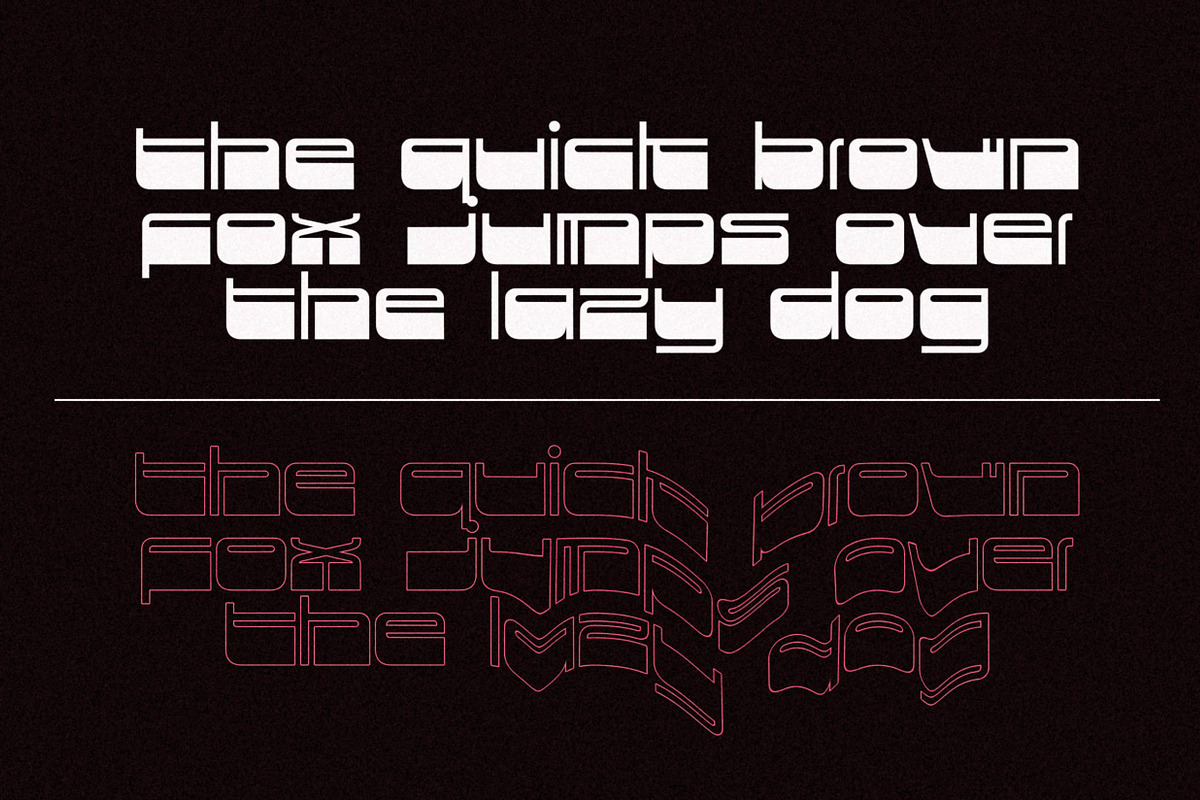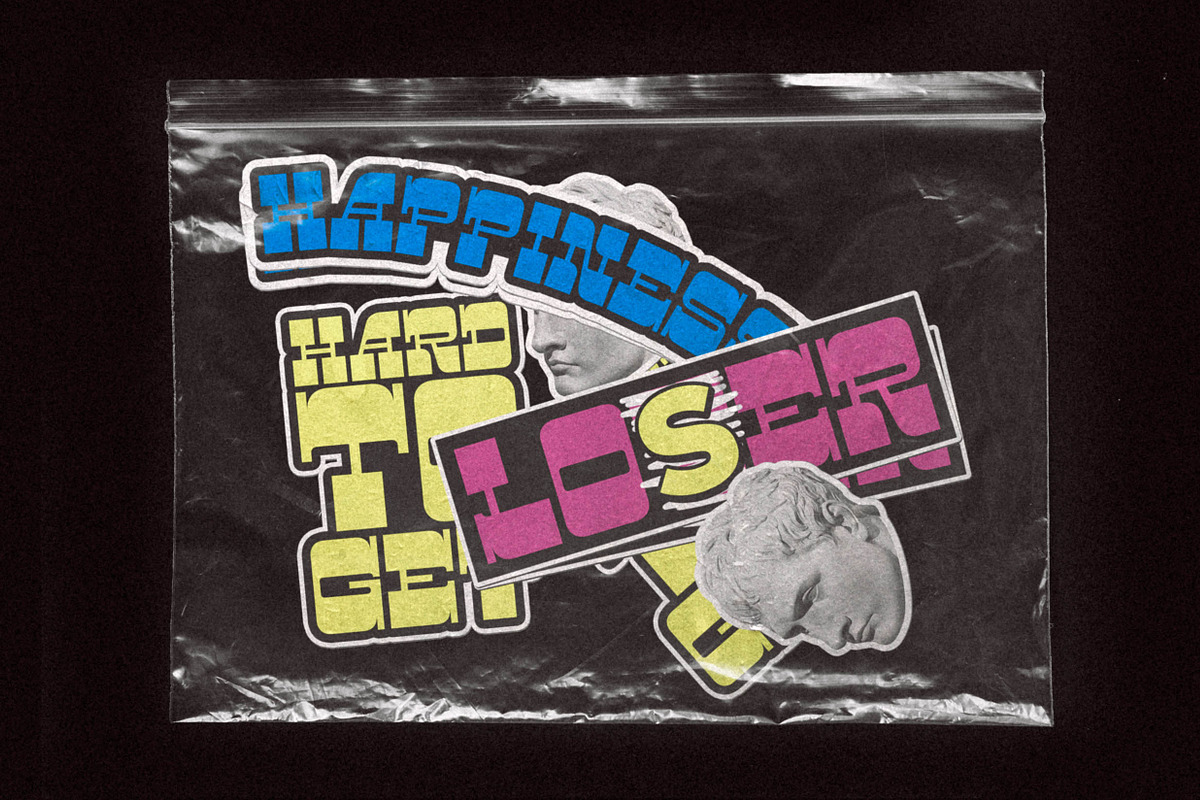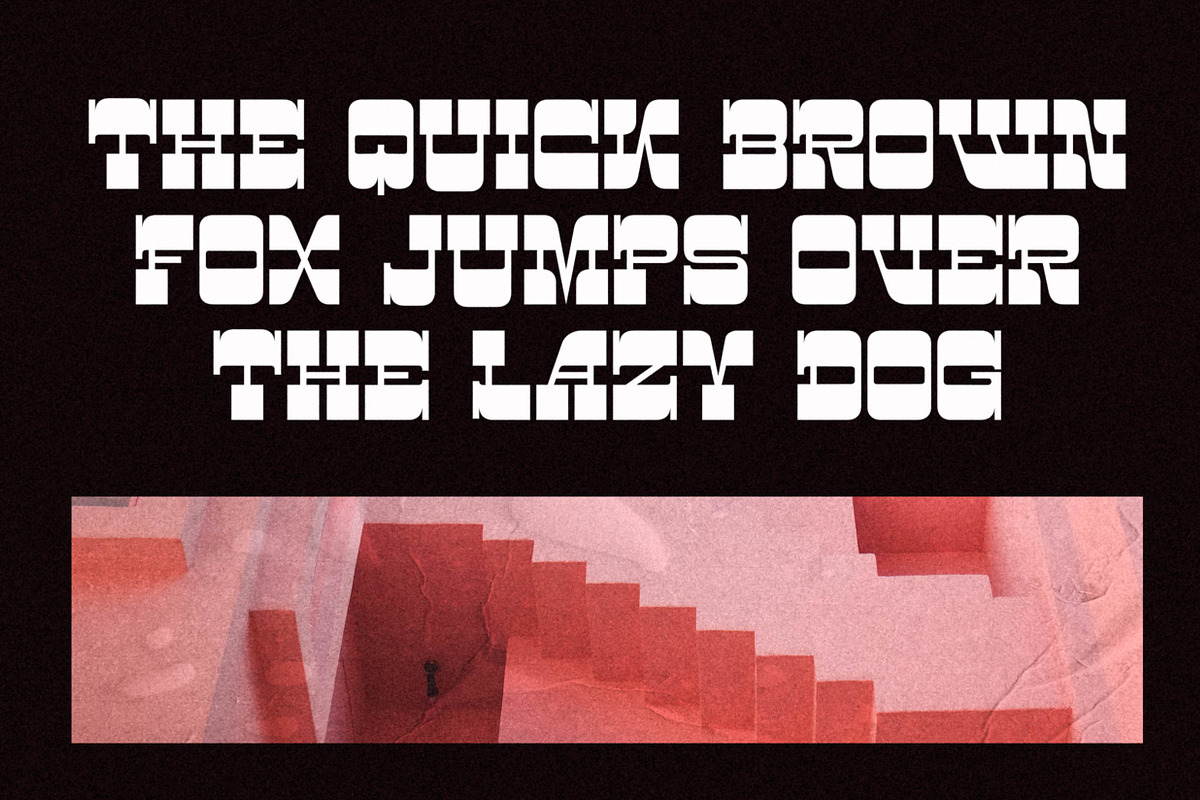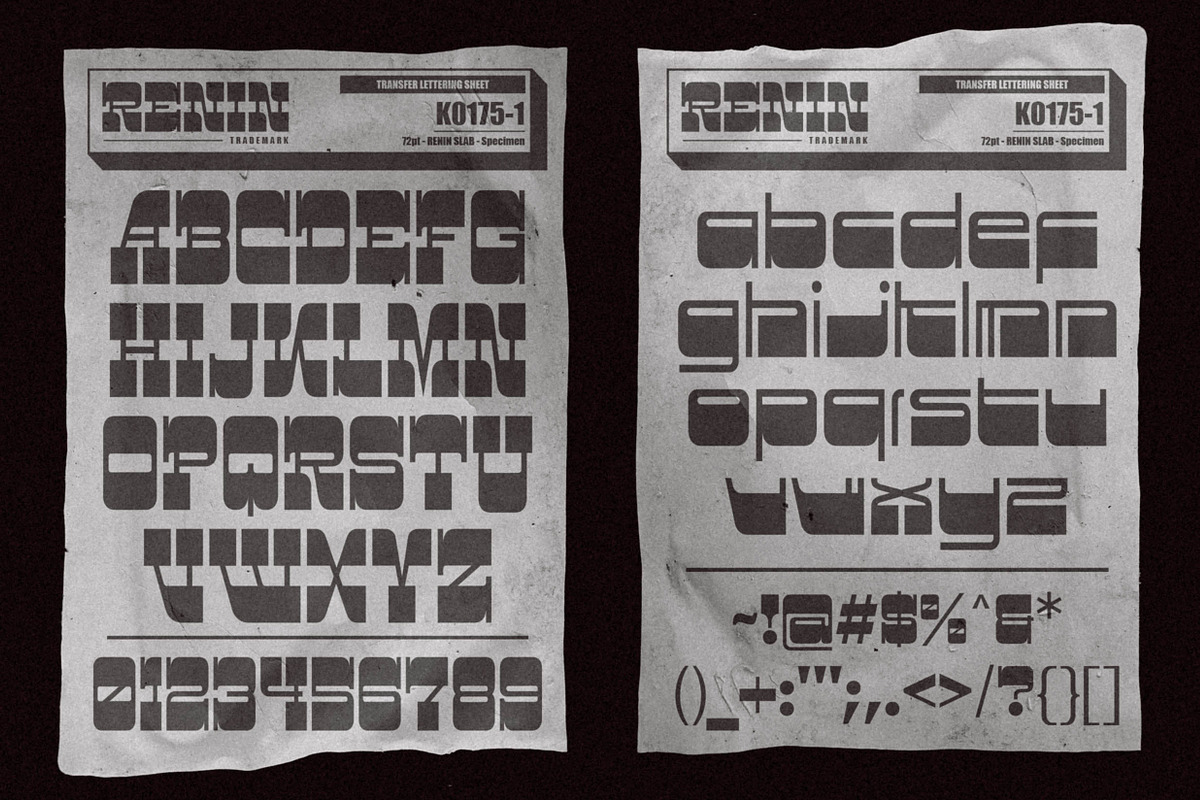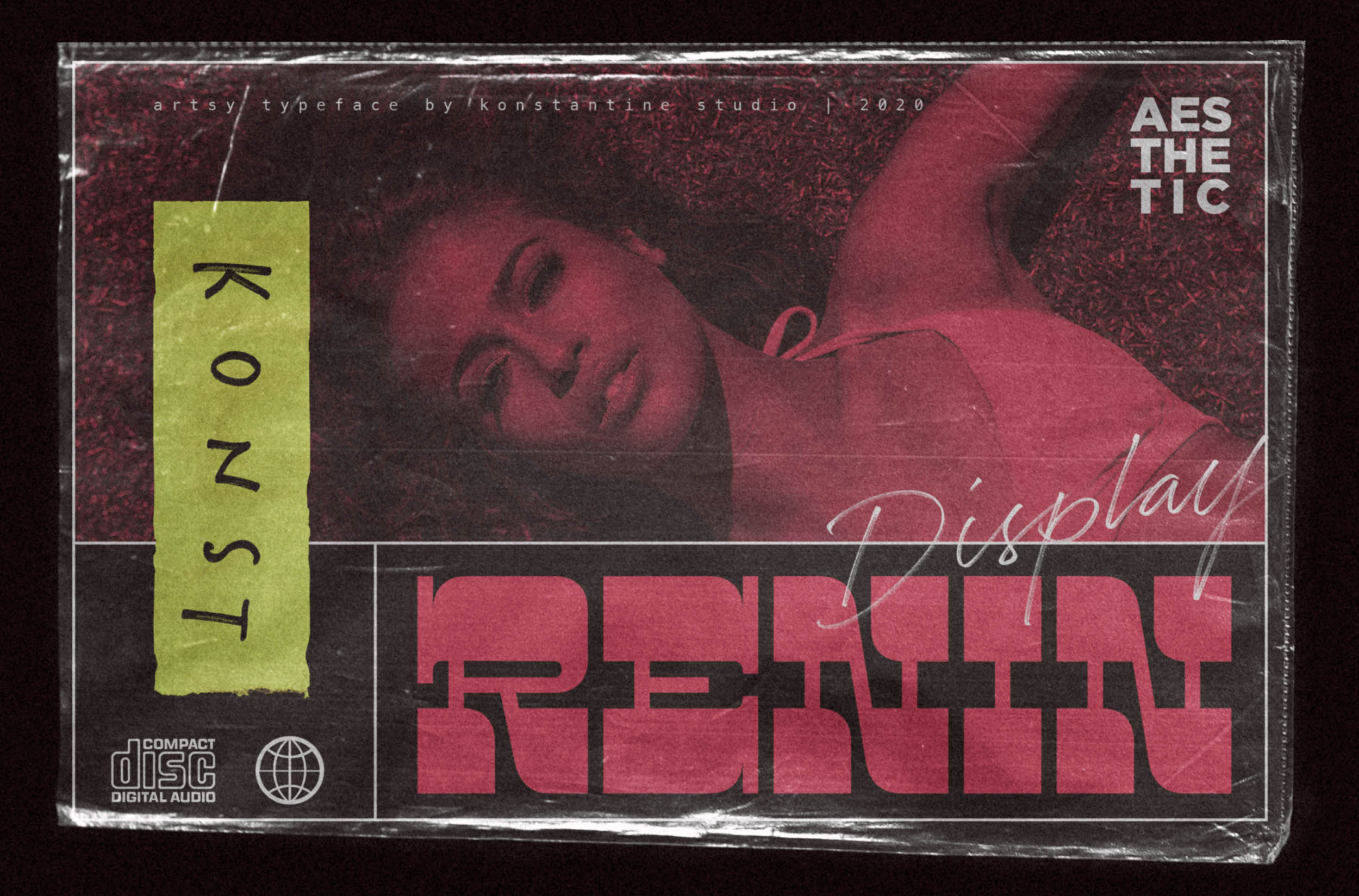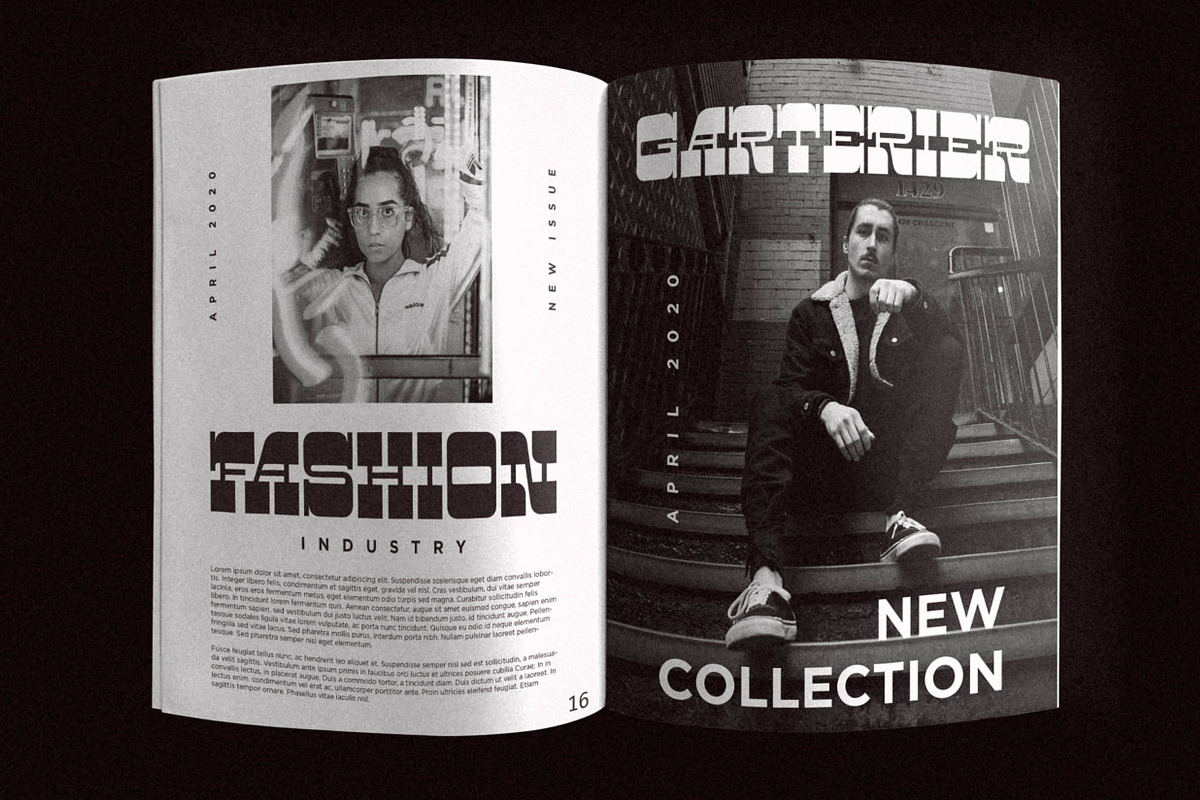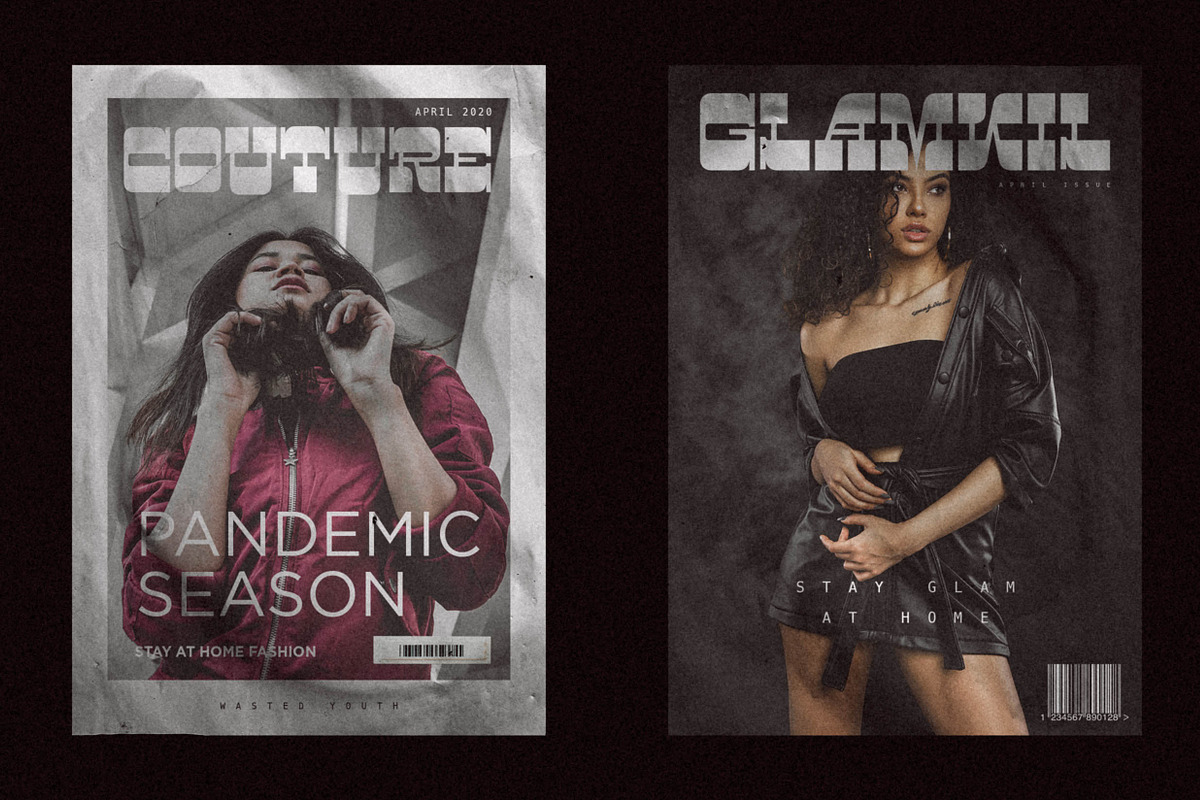
RENIN - Edgy Slab Serif Display Font
Reminiscing the old era of the aesthetic visual poster back in the 90s when the culture of graphic design is started to emerging into futuristic vision. The music and fashion industry back in the day was so strong in their visual presence. Brave composition to break the rules of technical graphic design and visual art is always the best weapon to save the seat in the industry. Everybody wants to be different, everybody wants the spotlight.
Somebody said the wheel of trend is always spinning. And now is the moment of truth when all of that history repeated. To celebrate the vibes, we came for you at the perfect time, perfect moment, with the RENIN.
An artistic and edgy display slab-serif font to break every rule and show your edgy aesthetic sides in the visual project.
Perfectly fit for a music project, logo, branding, poster, vaporwave concept art, aesthetic concept, album artwork, retro event, push yourself to the edge of the industry with this retro-futuristic font and get ready to be different from others, all eyes on you guaranteed.